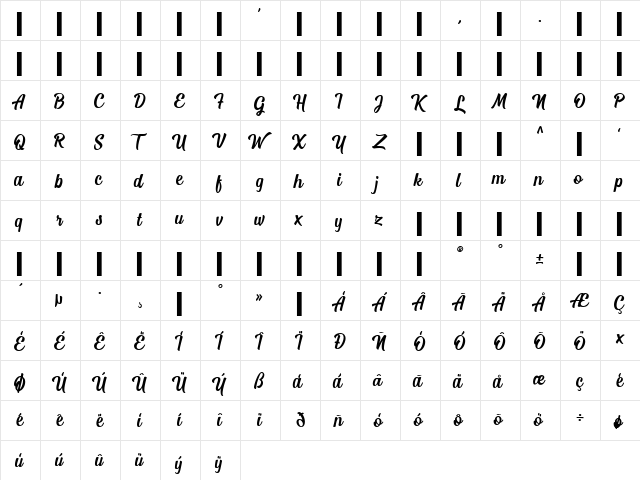
Mostley Script Regular
| Foundry | 50 Fox |
| Designer | Kelly Won |
Design Context for Mostley Script Typeface
Mostley Script brings a calligraphic fluidity to the page — its connecting strokes and expressive curves give it an unmistakably human quality.
Font Pairing: Combine Mostley Script with a simple geometric sans for maximum contrast — the tension between flowing curves and clean structure is a classic typographic pairing.
Pro Tip: Use Mostley Script for short runs of text — names, titles, or taglines. Extended body copy in script faces tires the eye quickly.